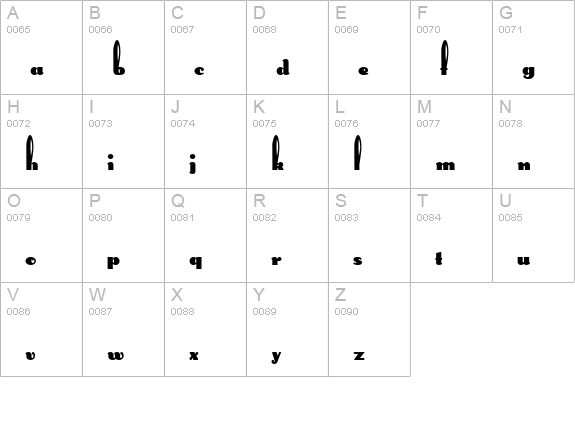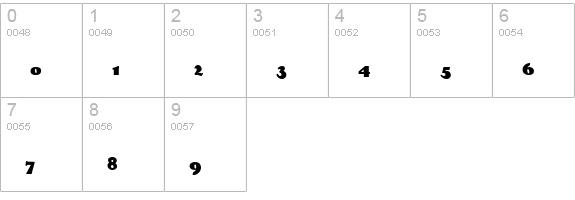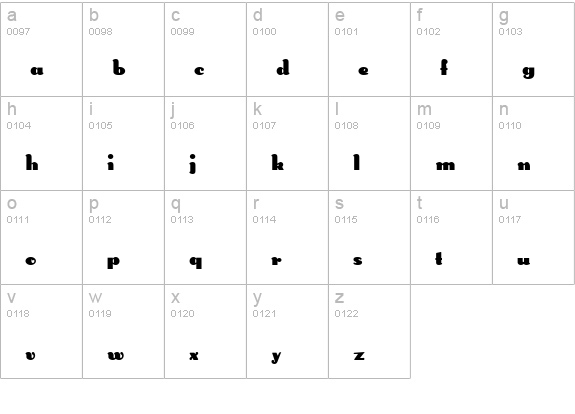
Long Ears MF Font Details
Long Ears MF font is a whimsical and playful typeface that features elongated characters with charmingly exaggerated ear-like extensions. This unique font is perfect for adding a touch of fun and quirkiness to your designs, whether you're working on posters, greeting cards, or branding projects. What sets Long Ears MF font apart is its free-spirited and lighthearted vibe, making it a great choice for projects that call for a touch of personality and creativity. The distinctive design of the characters will draw attention and add a sense of whimsy to your work. You'll be delighted to know that Long Ears MF font is freely available to download at FontsMarket.com, making it easily accessible to all designers looking to add a playful twist to their projects. Embrace the playful spirit of Long Ears MF font and let your creativity soar!